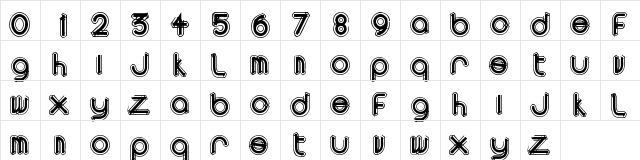
area OUTLINEe Regular
Design Context for area OUTLINEe Typeface
area OUTLINEe is built around its visual character rather than neutral utility — its distinctive forms are designed to make an impression at display sizes.
Font Pairing: Pair with a clean neutral sans-serif for body copy to let area OUTLINEe's character lead without overwhelming the composition.
Pro Tip: Use area OUTLINEe exclusively at display sizes — it was designed to be seen, not read at length. Let a neutral companion handle body copy.